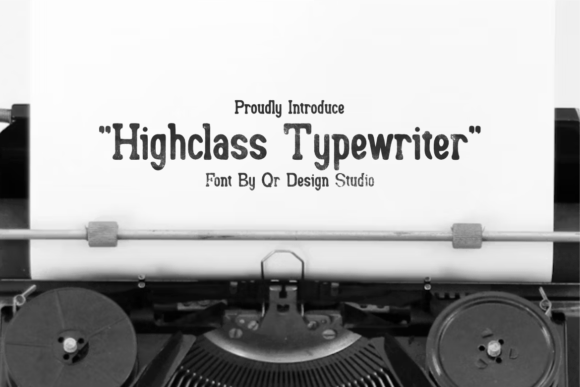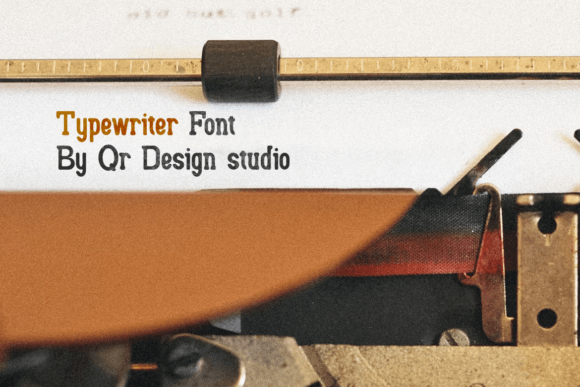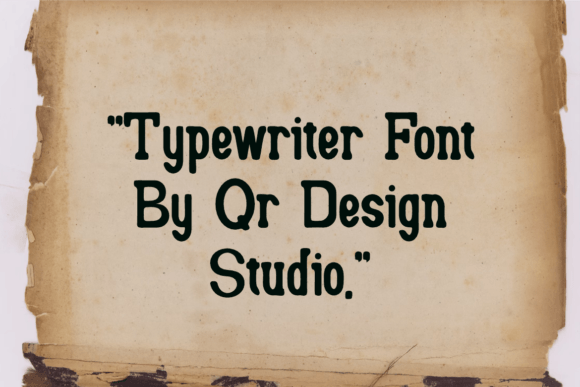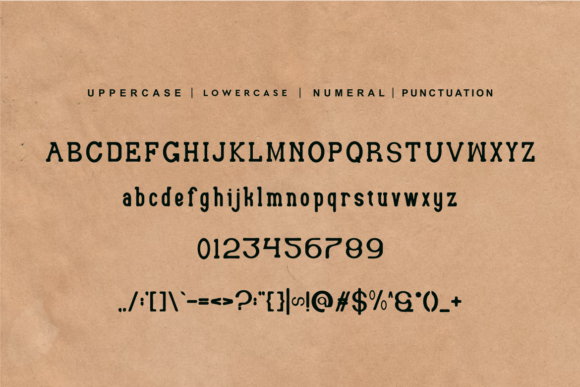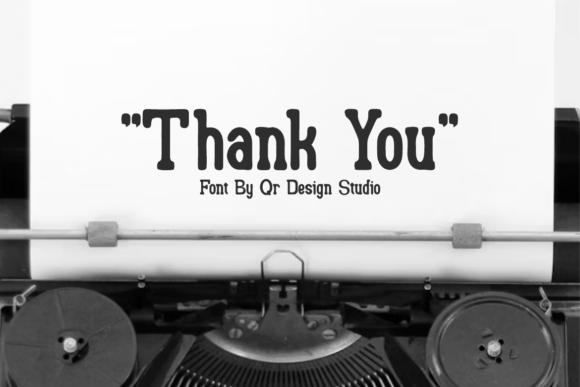
Highclass Typewriter Font
Highclass Typewriter Font is a serif and authentic display font.
The font is suitable for any branding project like logo, sport, and many more.
Outstanding in a wide range of contexts.